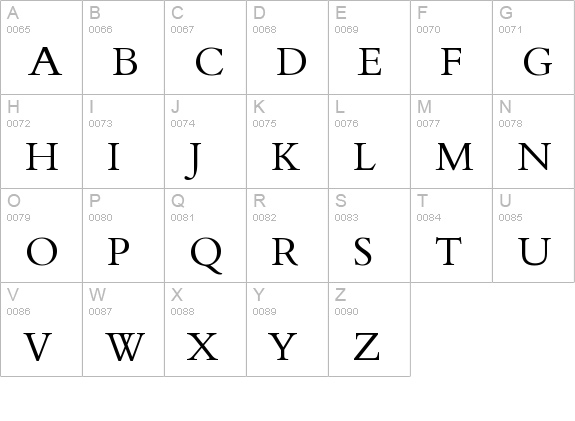
Nadine 2 Wide Normal Font Details
Nadine 2 Wide Normal is the standard, neutral, extended-width variant in the Nadine typeface family \xE2\x80\x94 well suited to general body text, paragraphs, and standard typographic work.
Nadine 2 Wide Normal font is a versatile and modern typeface that exudes elegance and sophistication. With its wide letterforms and clean lines, this font is perfect for a wide range of design projects, from branding to editorial design. Its legibility and readability make it a great choice for both print and digital applications. The best part? Nadine 2 Wide Normal font is available for free download at FontsMarket.com. Simply head over to the website and get your hands on this beautiful font to elevate your designs to the next level. Don't miss out on this opportunity to enhance your creative projects with the timeless charm of Nadine 2 Wide Normal font.